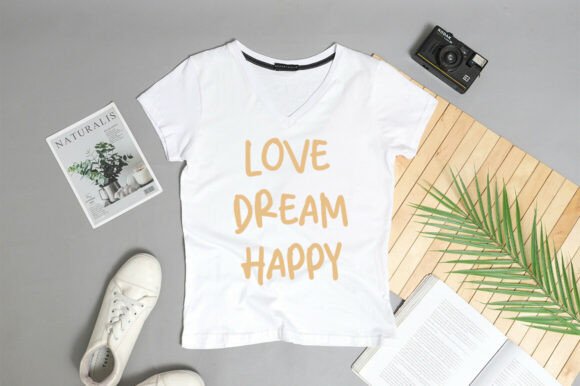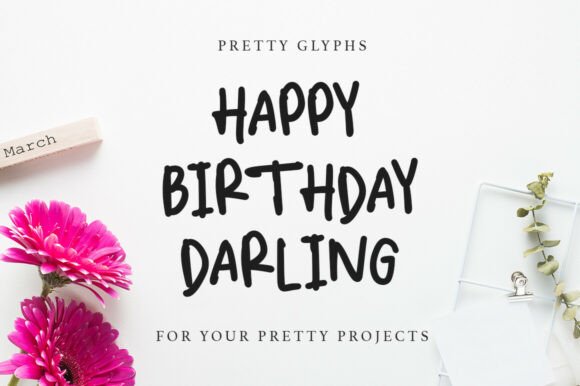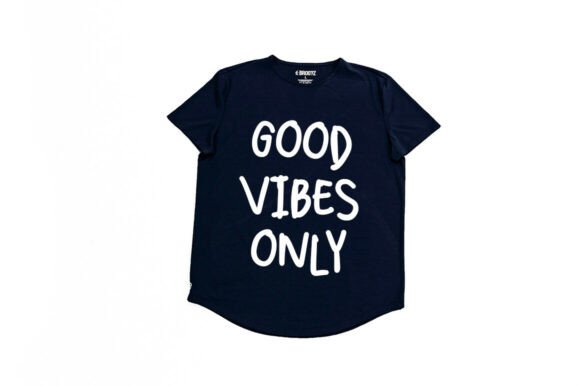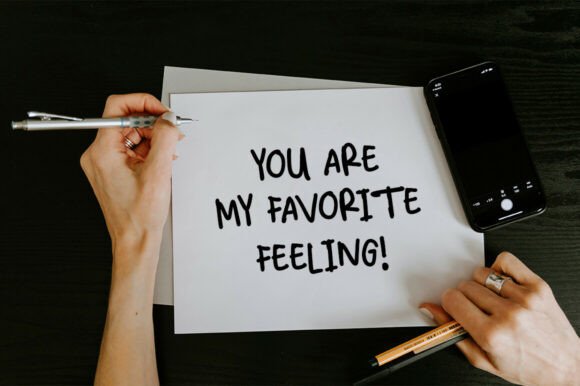
The Birth of a Bold Design: Foxie Brush Font
Have you ever found yourself doodling in the margins of a notebook or scribbling on a coffee shop napkin, lost in the rhythm of a creative flow? It’s a moment we’ve all experienced – the world fades away, and our imagination takes over. This is where the magic happens, and sometimes, it’s exactly what inspires a new design. The Foxie Brush Font is a direct result of such a moment, born from the desire to capture the raw energy and hand-crafted charm of a handwritten note.
This unique typeface is designed to make a statement, with its bold and energetic handwriting style defined by thick, irregular strokes and distinct hand-inked character. Whether you’re a seasoned designer or just starting out, the Foxie Brush Font is an exceptional choice for any project that demands a playful, human touch.
Foxie Brush Font Key Features
- Font Family: Foxie Brush Font
- Unique Characteristics: Hand-drawn, brush-style font with a natural, organic feel and subtle texture
- Font Style: Includes regular and italic styles
Designer Review: Foxie Brush Font
I recently had the chance to work with Foxie Brush Font, and I must say, it’s a unique and charming addition to any design project. ✨ The font’s whimsical feel and playful characters are sure to bring a smile to the viewer’s face. The soft, brush-like strokes add a touch of warmth and personality to any text.
- One of the standout features of Foxie Brush Font is its versatility. It works well for a variety of projects, from children’s books and educational materials to branding and marketing campaigns.
- The font’s bold and regular weights offer a nice balance, making it easy to use in both title and body text.
- The font’s character set is well-designed, with a wide range of punctuation and special characters available.
However, there are some limitations to consider. ⚠️ The font may not be suitable for projects that require a more formal or professional tone. Additionally, the font’s irregularities can sometimes make it difficult to read at smaller font sizes.
Overall, I’m impressed with Foxie Brush Font and think it’s a great addition to any designer’s toolkit. While it may not be the best choice for every project, it’s certainly a fun and creative option to consider.
Tips for Getting the Most Out of Foxie Brush Font
To get the most out of Foxie Brush Font, experiment with different font sizes, colors, and combinations with other fonts. Use it for creative and whimsical designs, such as invitations, quotes, and social media graphics. You can also use it for branding and logo designs to give a personal touch.
Some common use cases for Foxie Brush Font include: Wedding invitations, social media graphics, branding and logo designs, quotes and sayings, and creative and whimsical designs. The font is ideal for designers who want to add a personal and creative touch to their designs.
Alternatives to Foxie Brush Font
The Foxie Brush Font is a unique, handwritten font that adds a touch of whimsy and personality to designs. However, there are other fonts that offer similar characteristics and can be used as alternatives. Here are a few options:
Pacifico is a beautiful, modern script font that is perfect for adding a touch of elegance and sophistication to designs. It is a great choice for headings, titles, and other prominent text elements. Pacifico is similar to Foxie Brush Font in that it is a script font, but it has a more refined and polished look. It is ideal for use in branding, packaging, and advertising.
Great Vibes is a lively, energetic font that is perfect for adding a touch of playfulness and fun to designs. It is a great choice for headings, titles, and other prominent text elements. Great Vibes is similar to Foxie Brush Font in that it has a handwritten feel, but it has a more carefree and spontaneous look. It is ideal for use in social media, blogs, and other digital platforms.